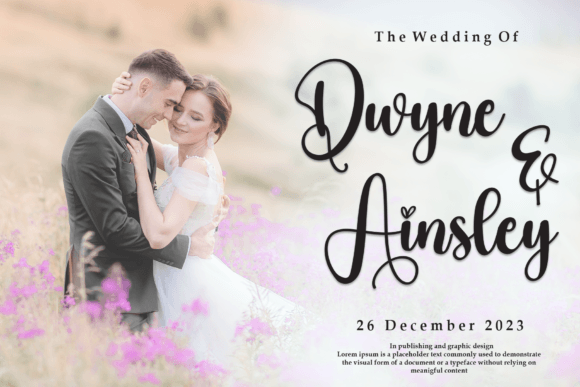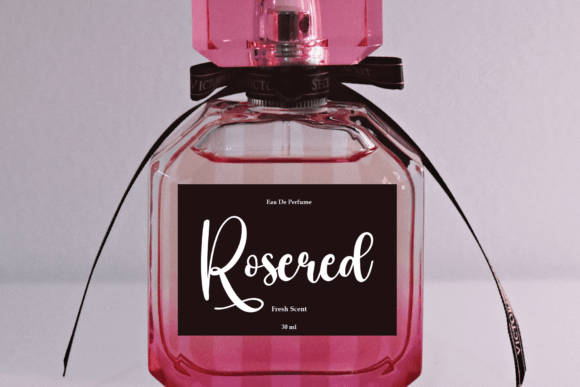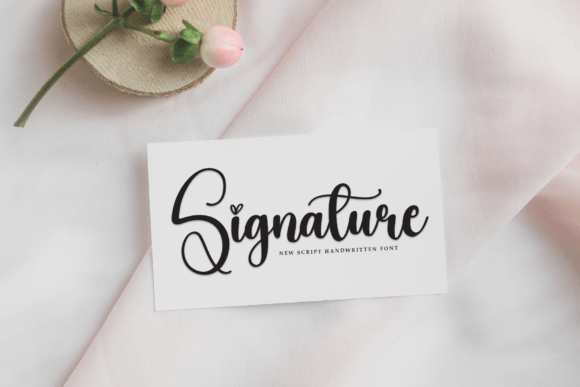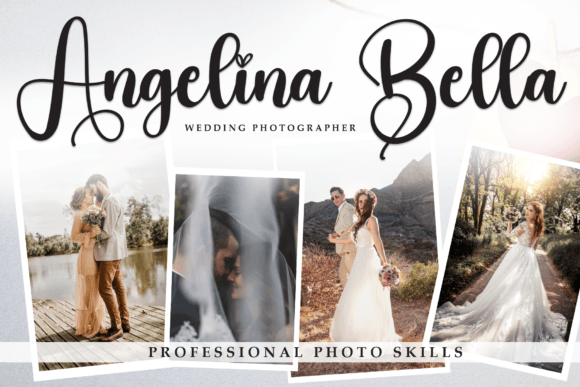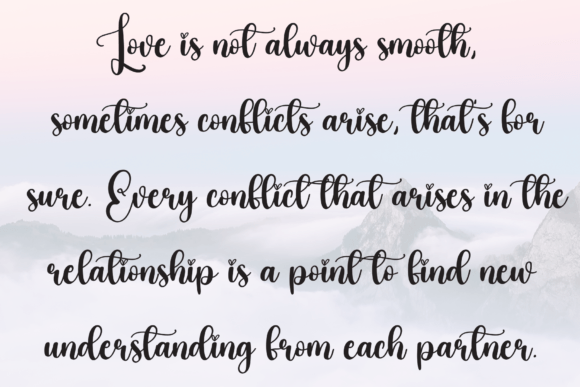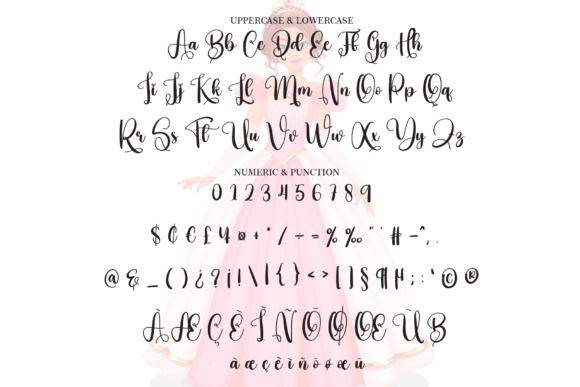
Introducing the Elegant Barbie Font: Elevate Your Designs with Timeless Style
Are you a designer, crafter, or DIY enthusiast looking for the perfect font to add a touch of sophistication and glamour to your projects? Look no further than the Barbie Font, a stunning typeface that exudes elegance and refinement. This versatile font is ideal for a wide range of applications, from wall displays and wedding invitations to social media posts, logos, advertisements, product packaging, and more.
The Latest Style Letters for Modern Designs
The Barbie Font is a modern, stylish typeface that features beautiful, flowing letters perfect for making a statement. Its unique design makes it an excellent choice for any project that requires a touch of luxury and sophistication. Whether you’re creating a wedding invitation, designing a logo, or crafting a social media post, this font is sure to impress.
Perfect for Various Applications
The Barbie Font is incredibly versatile and can be used for a wide range of applications, including:
- Wall displays and signage
- Social media posts and logos
- Advertisements and marketing materials
- Product packaging and design
- Labels and branding
- Photography and watermarks
- Invitations and event planning
- Stationery and paper crafts
Why Choose the Barbie Font?
There are many reasons why the Barbie Font stands out from the crowd. Here are just a few:
- Elegant design: The Barbie Font features a beautiful, flowing design that’s perfect for making a statement.
- Versatility: This font can be used for a wide range of applications, from wedding invitations to product packaging.
Tips for Using the Barbie Font
Here are a few tips for getting the most out of the Barbie Font:
- Experiment with different sizes and colors: The Barbie Font looks great in a variety of sizes and colors, so don’t be afraid to experiment and find the perfect combination for your project.
- Pair with other fonts: The Barbie Font pairs well with other fonts, so consider combining it with a sans-serif font for added visual interest.
- Use for headlines and titles: The Barbie Font is perfect for headlines and titles, where its elegant design can really shine.